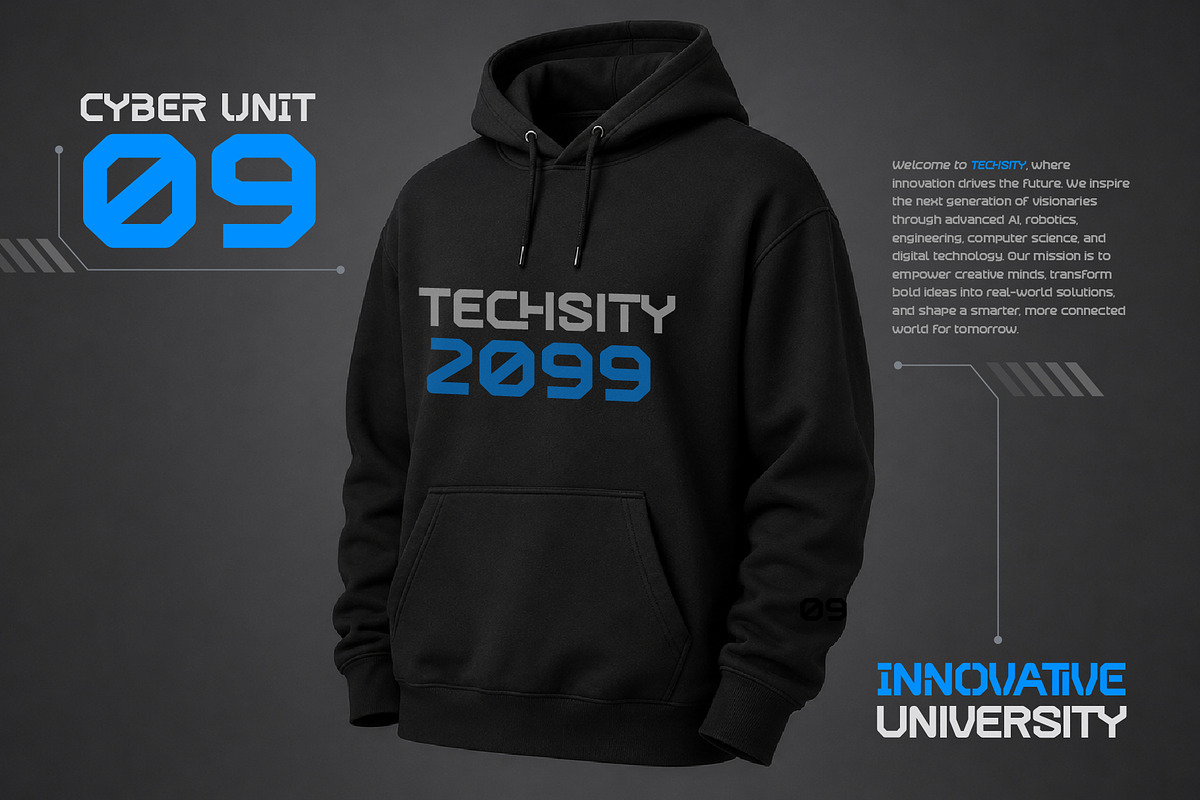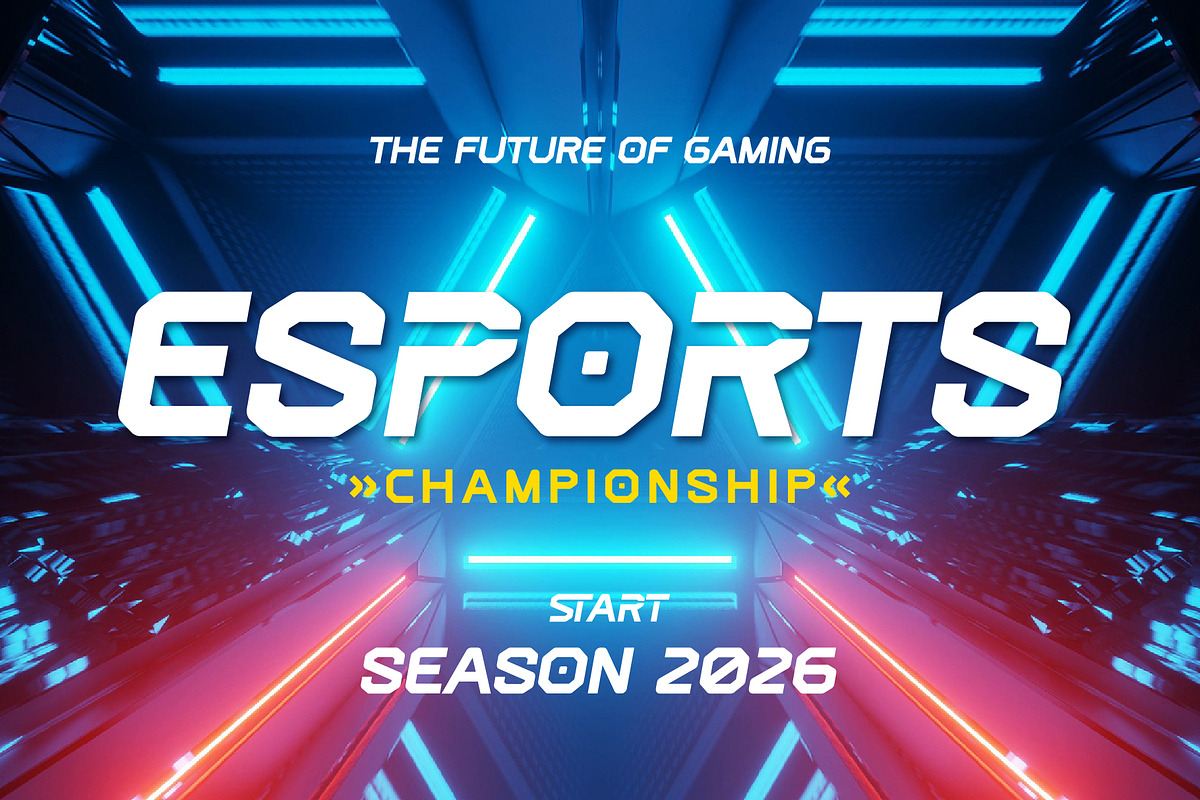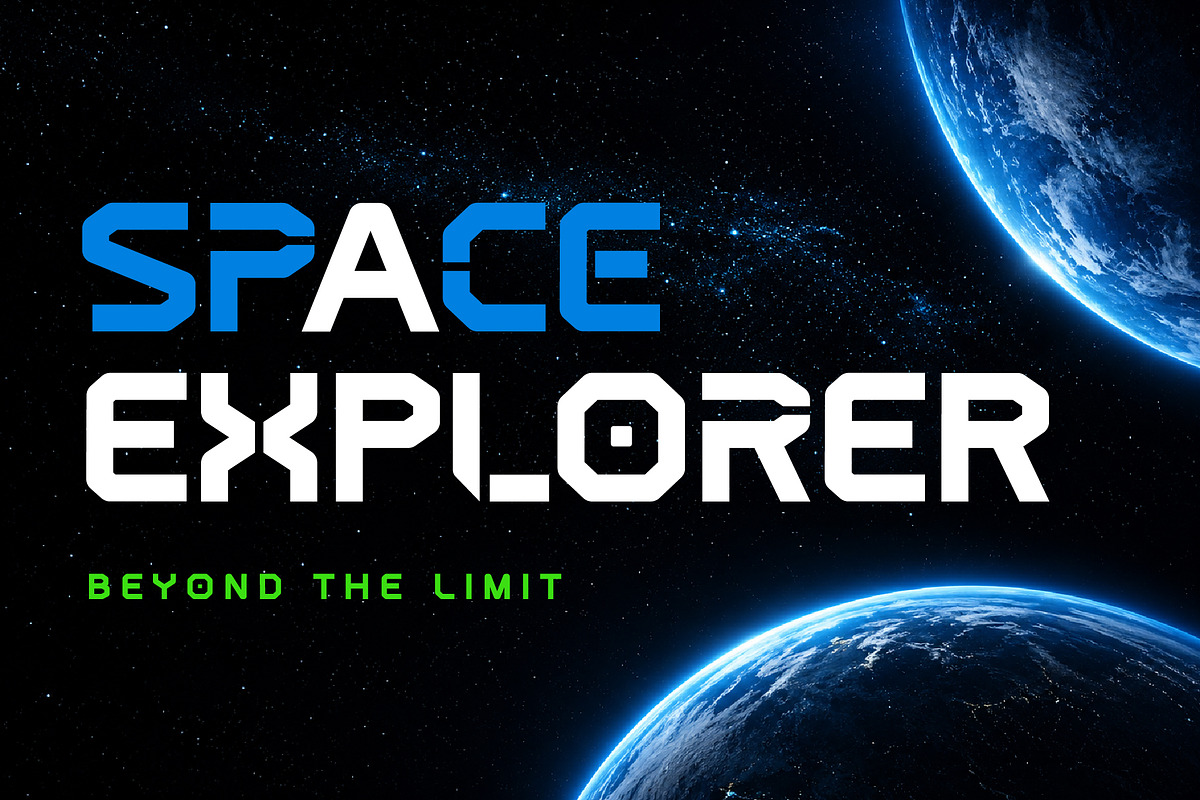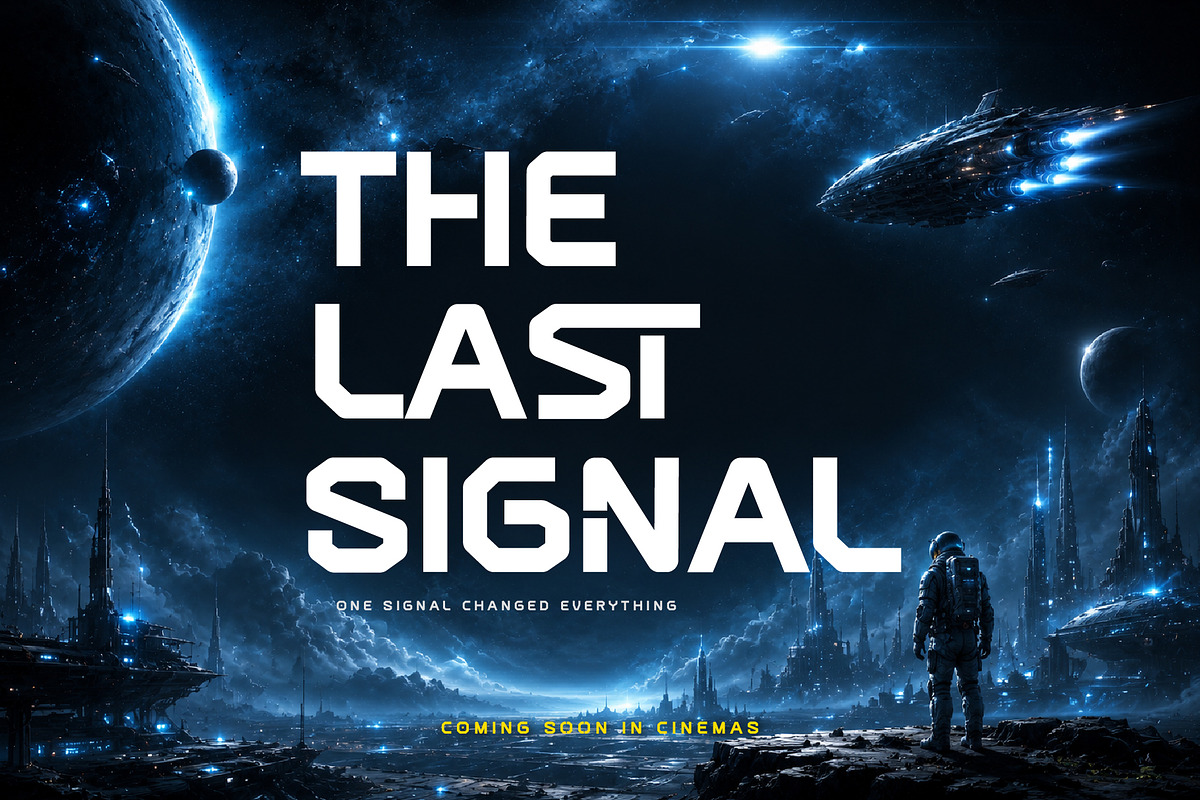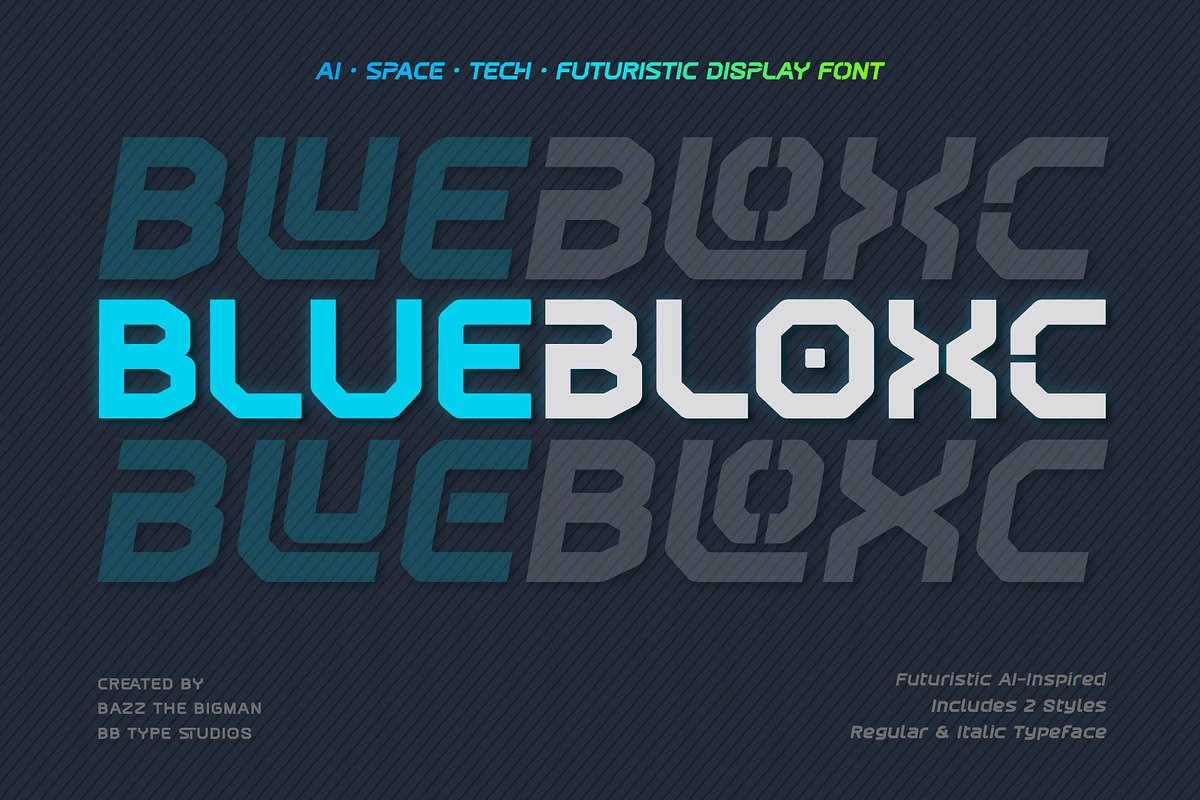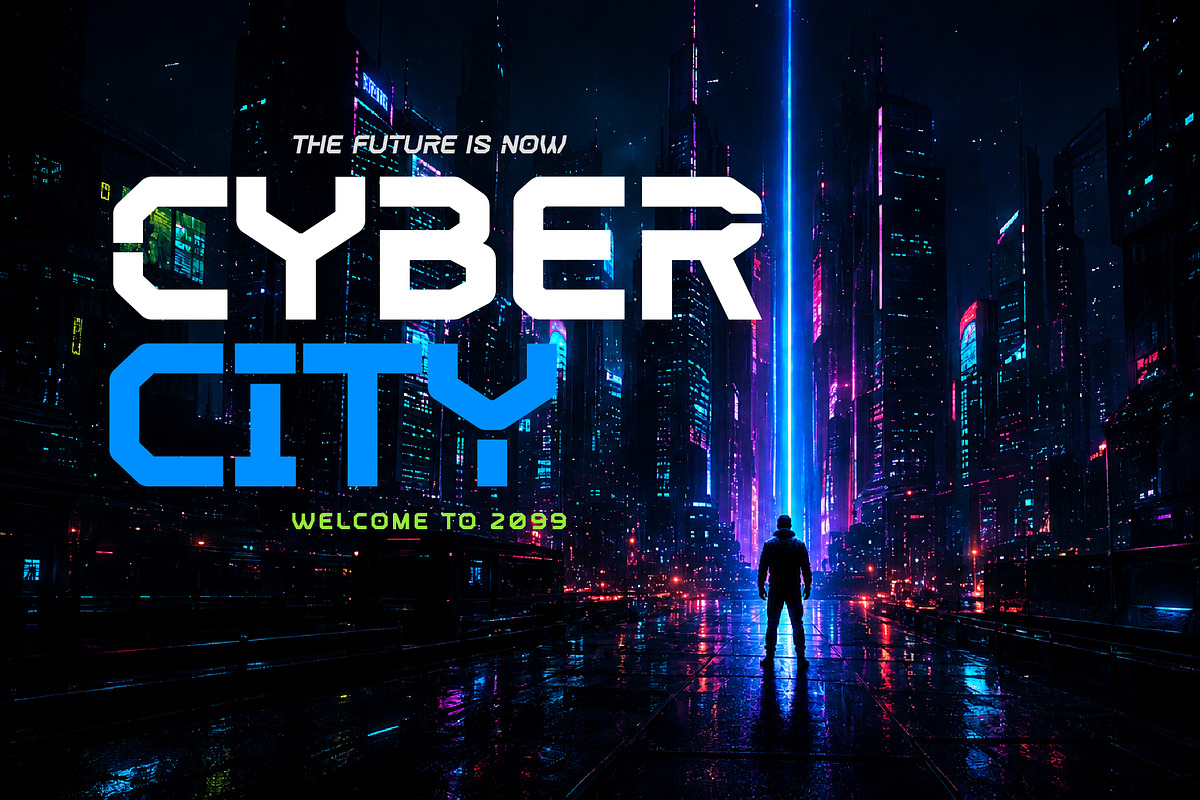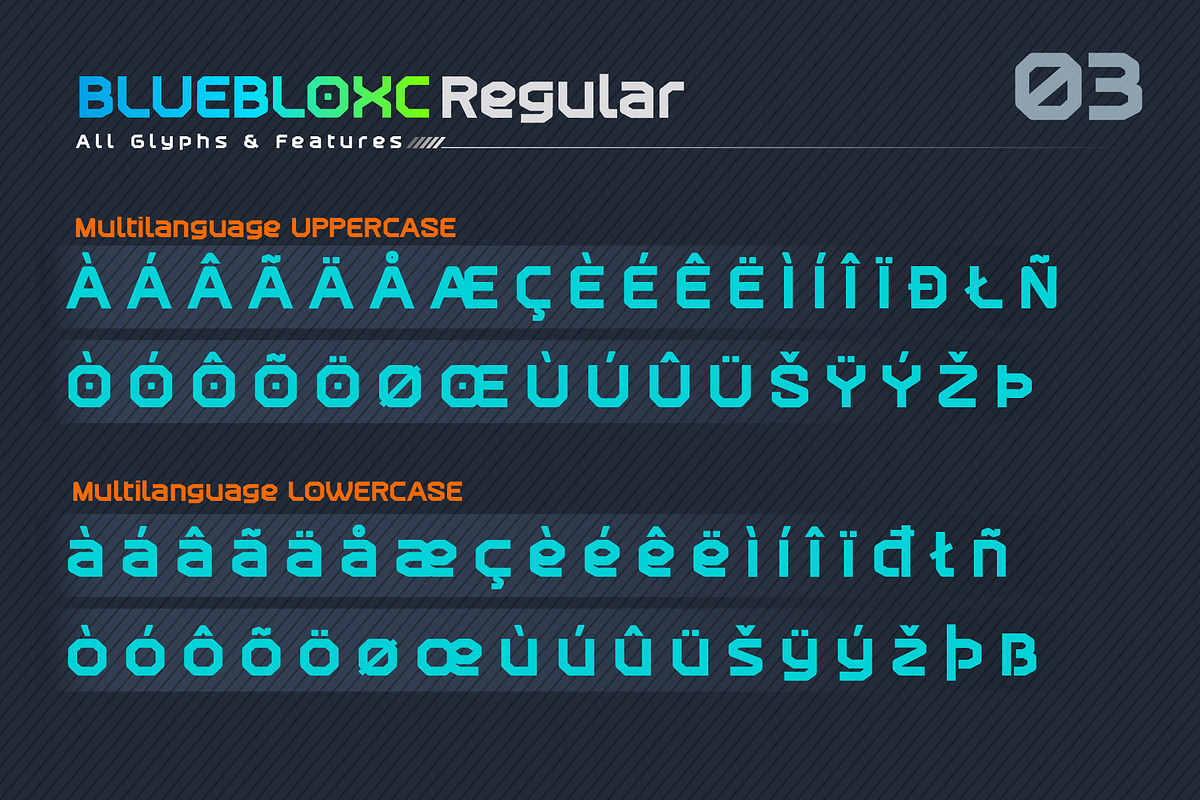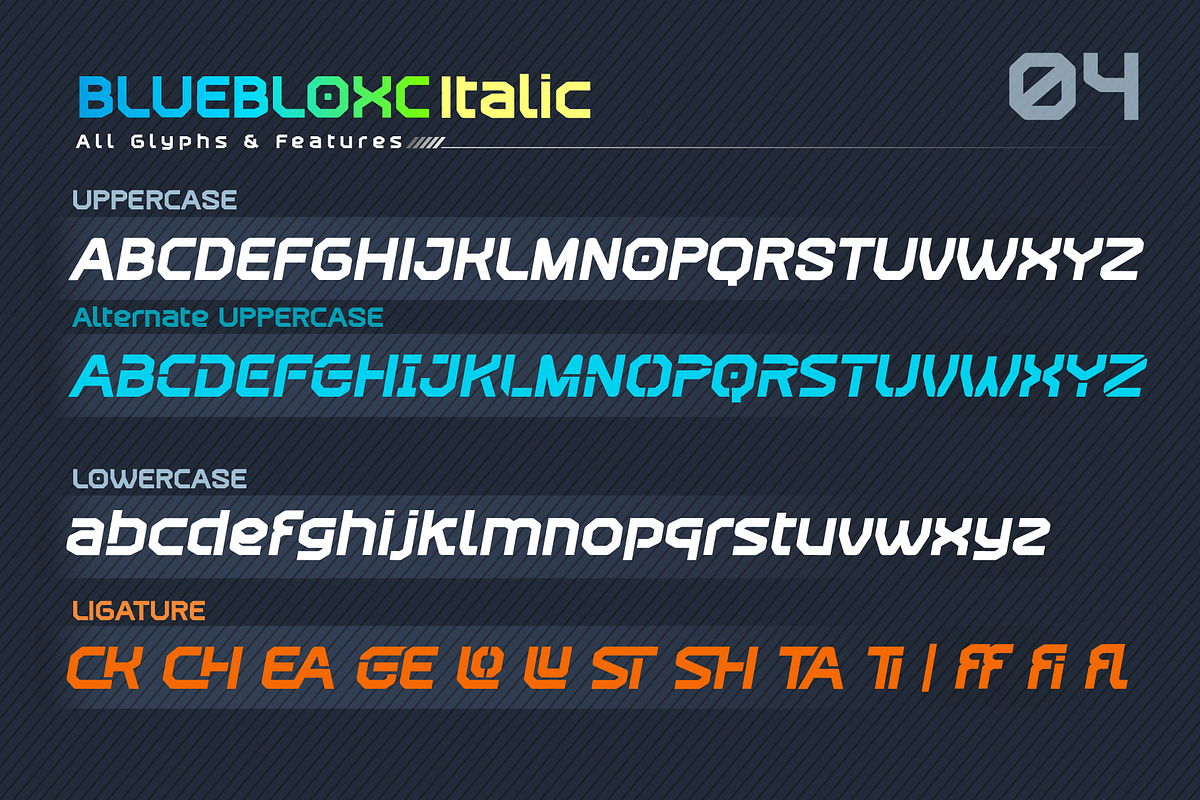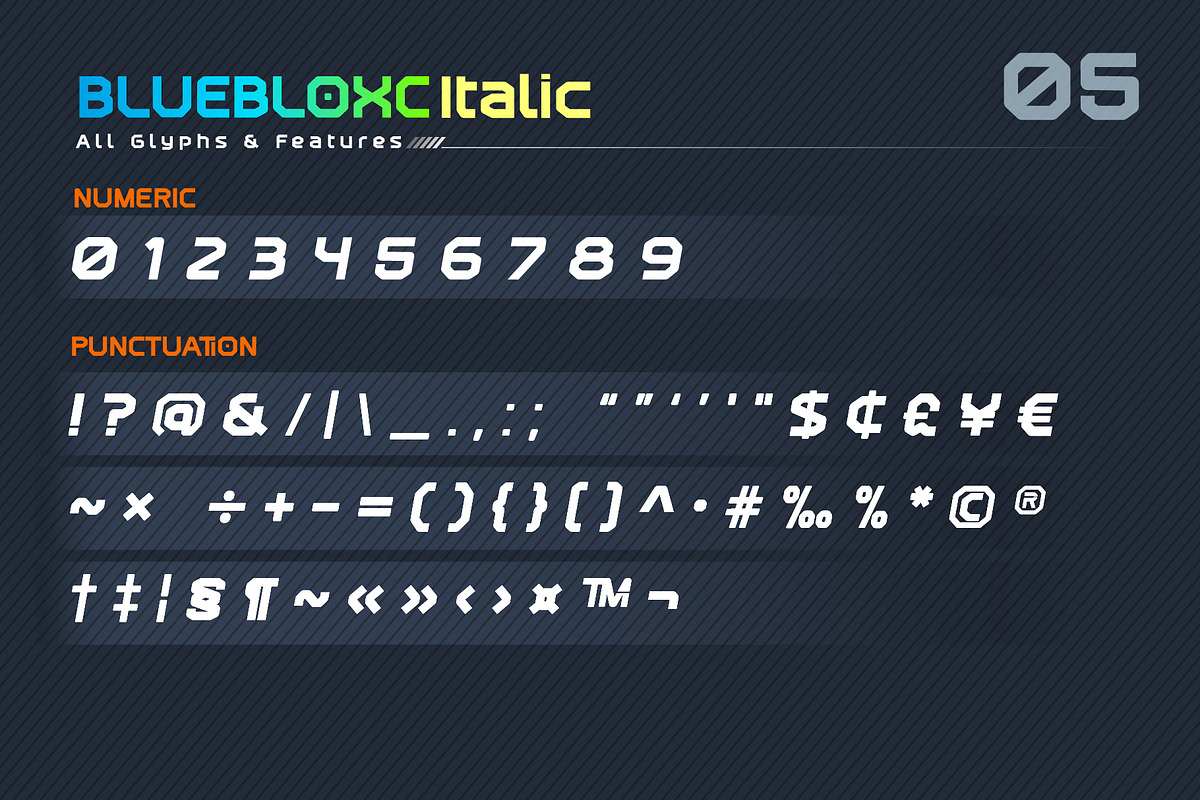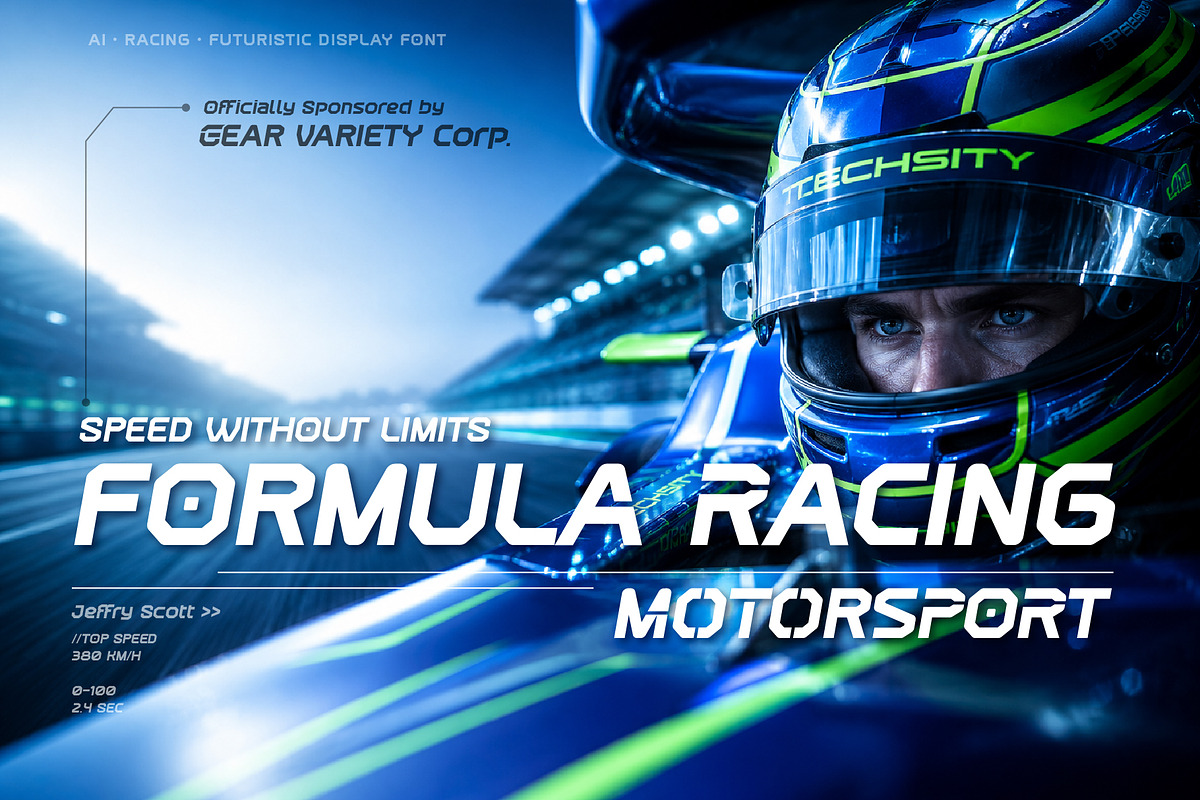
Blue Bloxc
BLUEBLOXC
AI • SPACE • TECH • FUTURISTIC DISPLAY FONT
BLUEBLOXC is a bold futuristic display typeface inspired by artificial intelligence, advanced technology, cyberpunk aesthetics, space exploration, and high-performance motorsport. Designed with strong geometric forms, sharp corners, and dynamic curves, it delivers a powerful modern look for branding, gaming, sci-fi projects, sports graphics, and digital interfaces.
This font family includes Regular and Italic styles, complete with Alternate Characters, Ligatures, multilingual support, numerals, and punctuation—giving you maximum creative flexibility.
Perfect for creating futuristic logos, movie titles, esports branding, racing graphics, technology packaging, UI design, posters, apparel, YouTube thumbnails, and social media content.
Regular & Italic Styles
Alternate Characters
Standard Ligatures